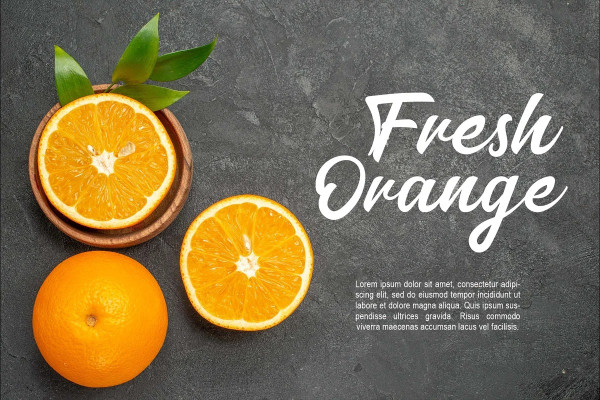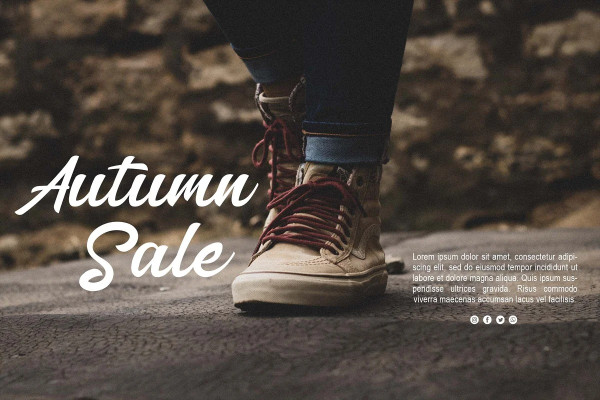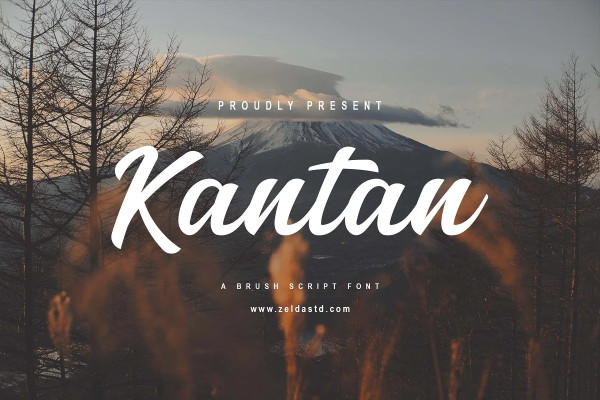
KANTAN Typeface
Kantan Typeface is a handwritten display font with a strikingly authentic feel font is our new item that is suitable for your Posters. Great for Logo, Poster, Sticker, Jerseys, Invitation Cards, Brochure, etc.